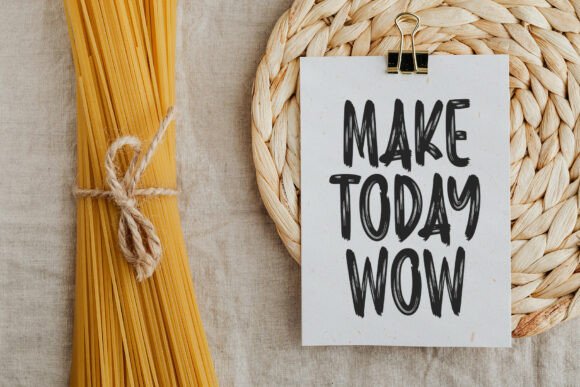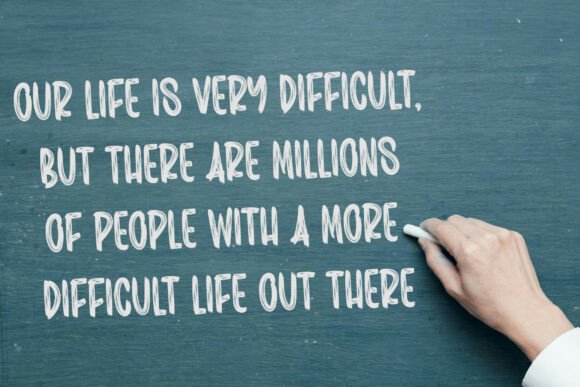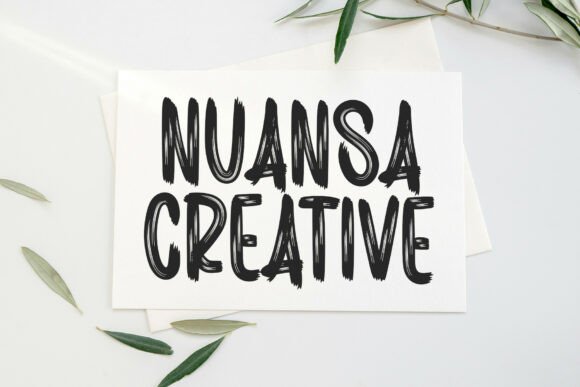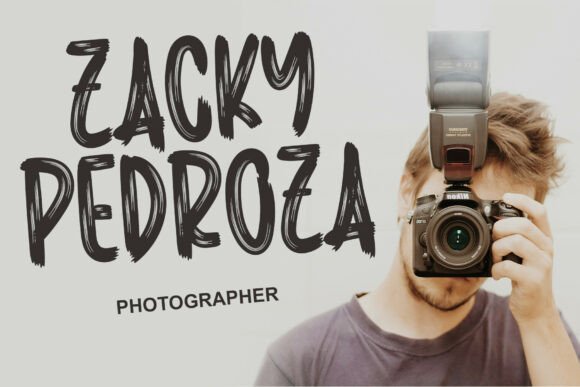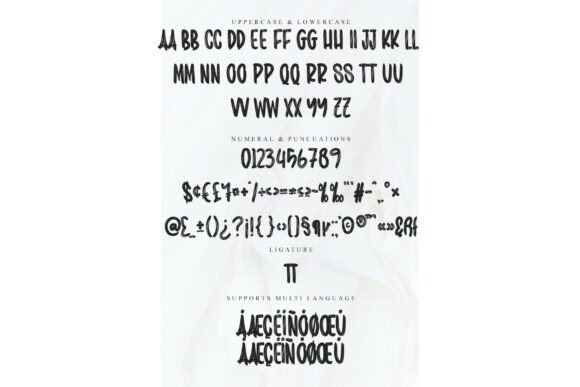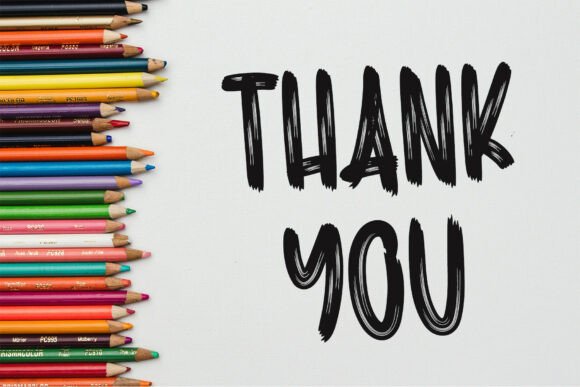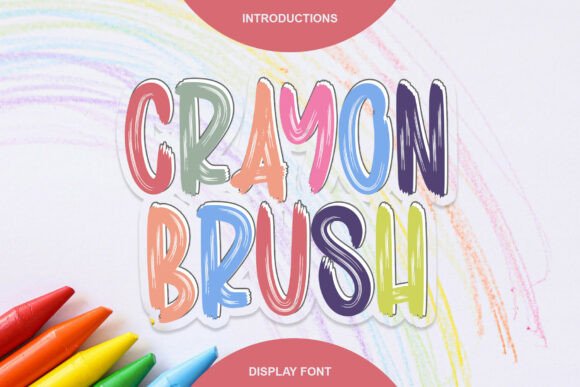
Crayon Brush Font: Unleash Your Creativity with Vibrant Display Typography
Are you ready to add a splash of color and a dash of whimsy to your designs? Look no further than Crayon Brush, a playful and energetic display font that’s sure to ignite your creativity. This delightful font is designed to mimic the raw texture of wax crayons, bringing a sense of childhood wonder and bold artistic expression to your typography.
The Crayon Brush Advantage: Unique Texture and Style
What sets Crayon Brush apart from other display fonts is its intricately detailed, realistic brush-stroke textures and feathered edges. Each character is carefully crafted to give your text a high-impact, 3D appearance that’s reminiscent of crayon drawings on a physical page. The result is a font that’s not only visually striking but also tactile and engaging.
Perfect for Creative Projects and Designs
Crayon Brush is the ultimate choice for designers, crafters, and creators who aren’t afraid of a little mess and a lot of color. This font excels in environments where you want to communicate joy and spontaneity, making it perfect for:
• Children’s book titles and illustrations
• School-themed graphics and educational materials
• Bright posters and eye-catching advertisements
• Dynamic branding and packaging designs
Stand Out with a Hand-Drawn Aesthetic
In a world of sterile digital typography, Crayon Brush offers a refreshing alternative. Its chunky, friendly letterforms provide a unique hand-drawn aesthetic that’s sure to stand out in any design. Whether you’re creating a logo, headline, or title, this font adds a burst of personality and a tactile, textured finish that truly pops.
Technical Details and Encoding
Crayon Brush supports PUA (Private Use Area) encoding, providing users with a vast range of characters and glyphs to experiment with. This feature allows for greater flexibility and creativity in your designs, making it easier to craft unique and engaging typography.
Tips for Using Crayon Brush in Your Designs
To get the most out of Crayon Brush, here are a few tips to keep in mind:
• Experiment with different colors and textures to enhance the crayon-like effect
• Use the font in combination with other playful typography and graphics for a bold look
• Don’t be afraid to get creative and try out new and innovative design ideas
Conclusion: Unleash Your Creativity with Crayon Brush
In conclusion, Crayon Brush is a vibrant display font that’s sure to bring a touch of magic to your designs. With its unique texture, playful style, and bold artistic expression, this font is perfect for creators who want to communicate joy and spontaneity. So why wait? Unleash your creativity with Crayon Brush and take your typography to the next level!